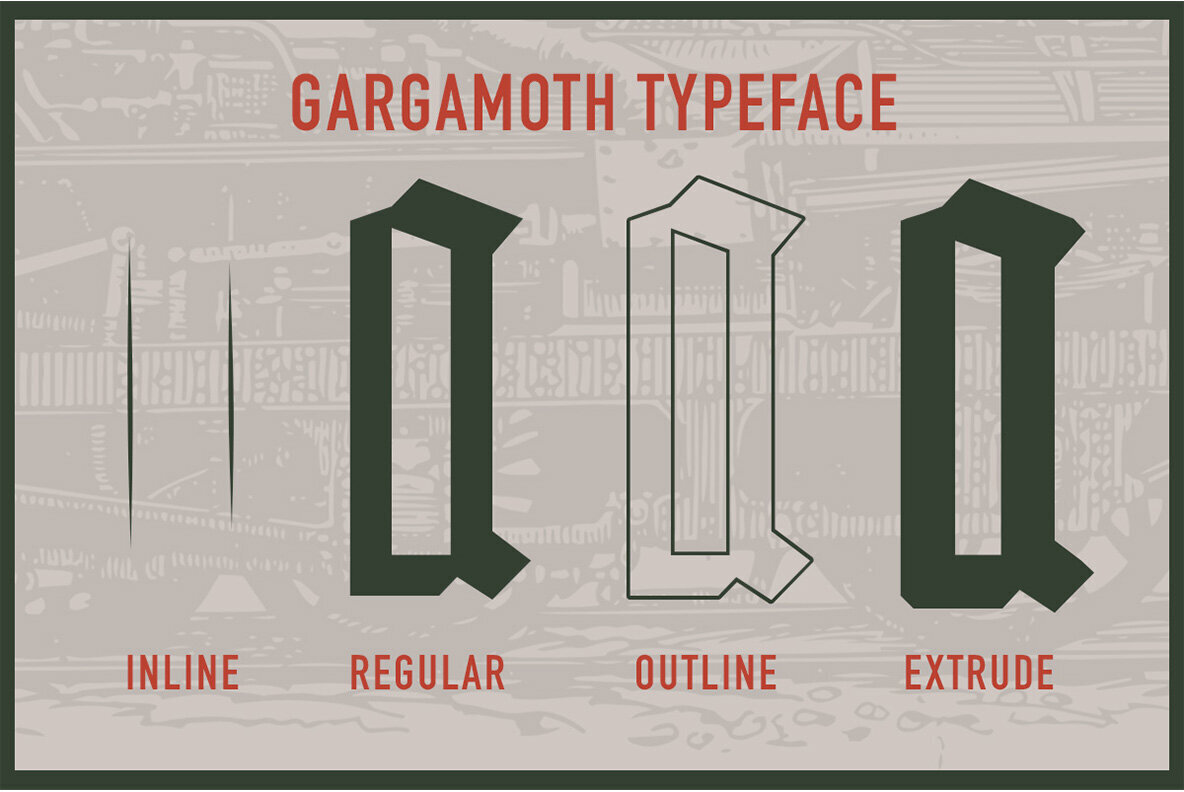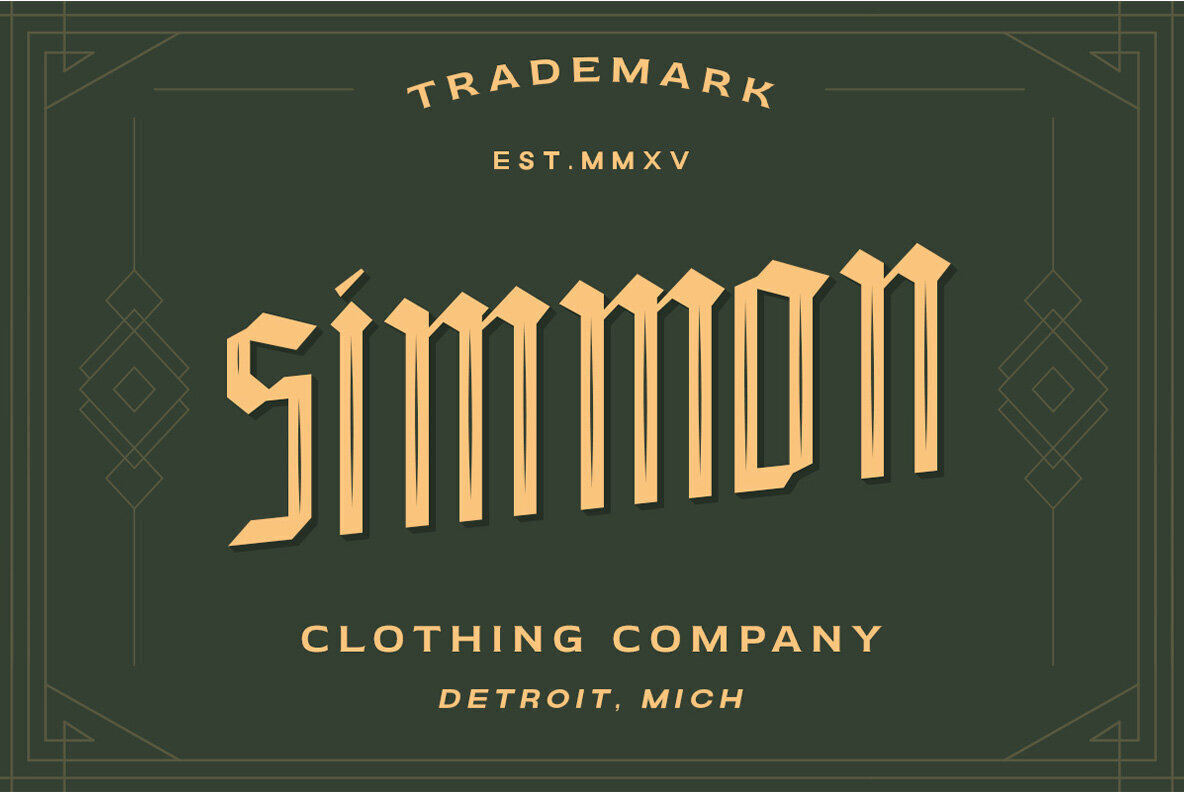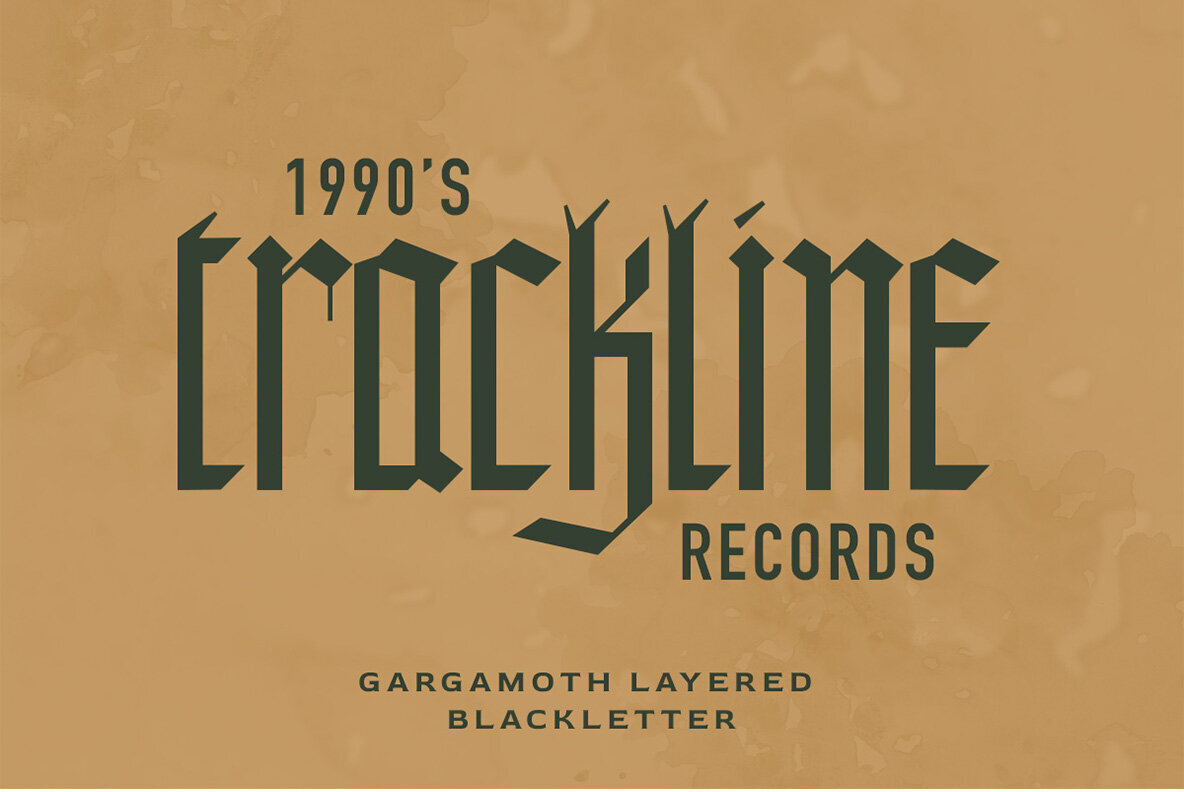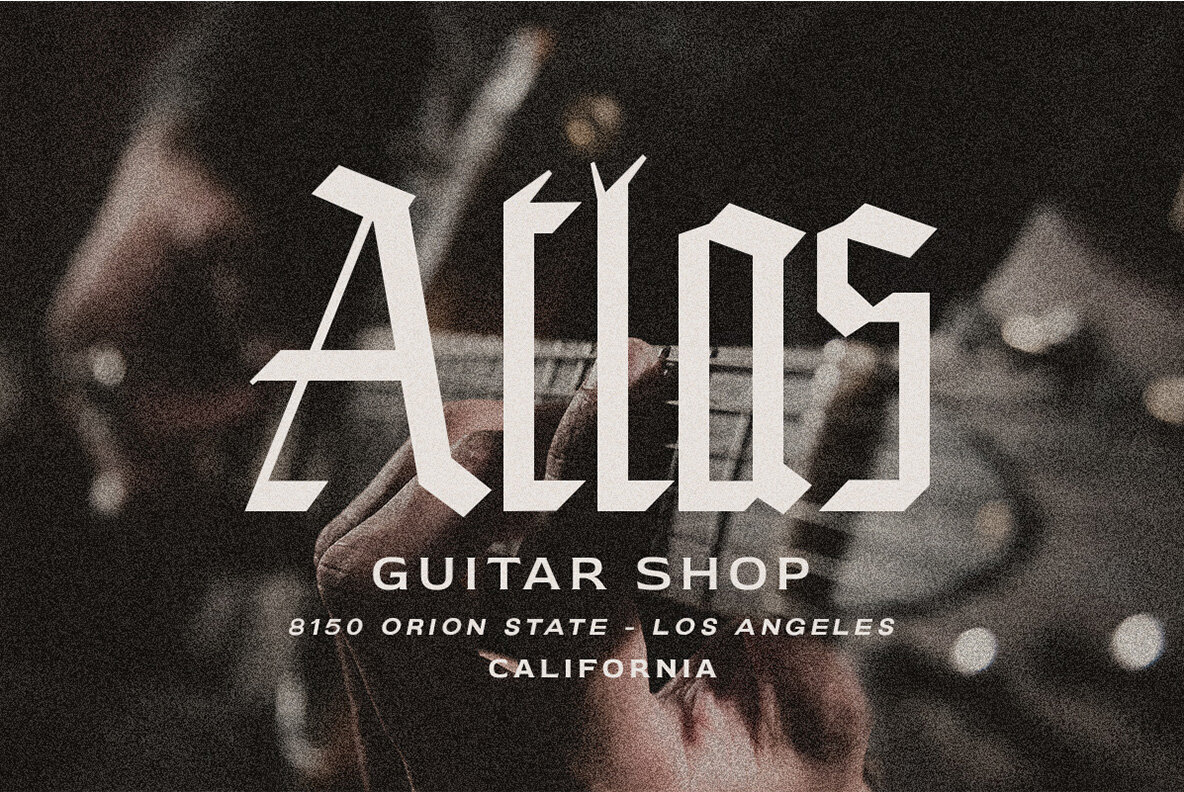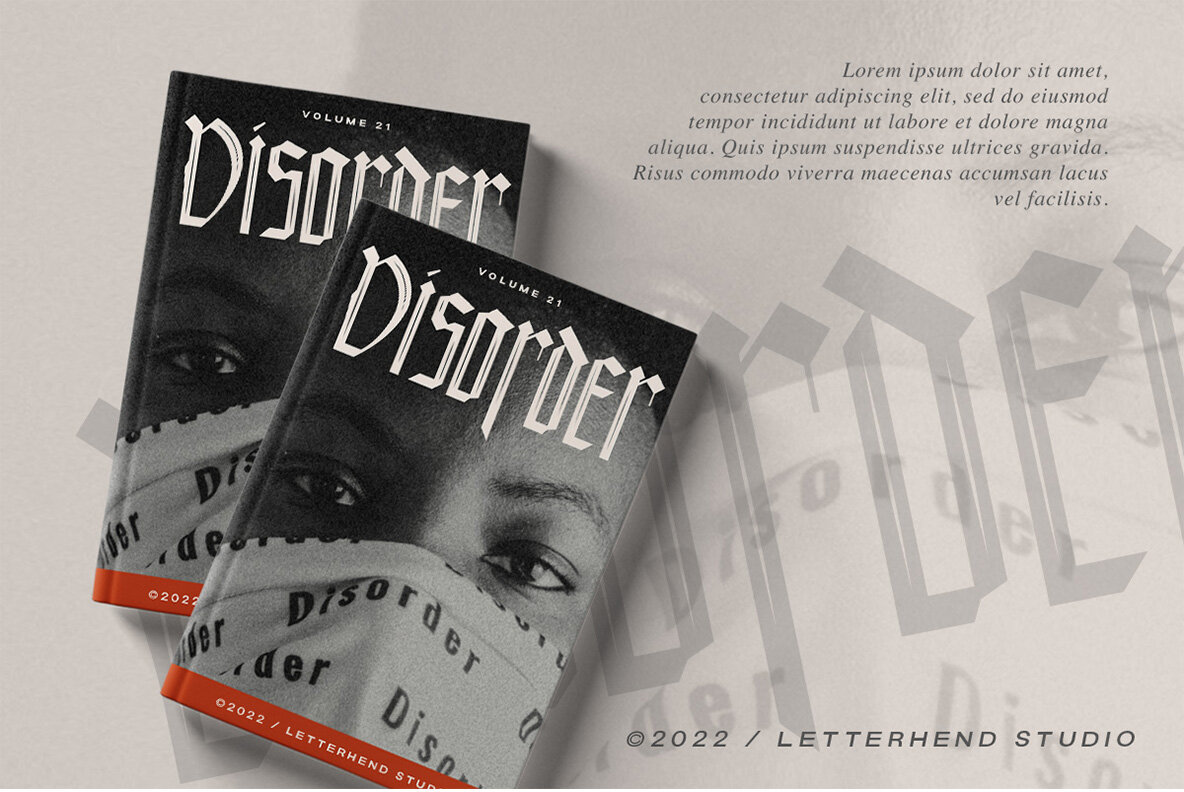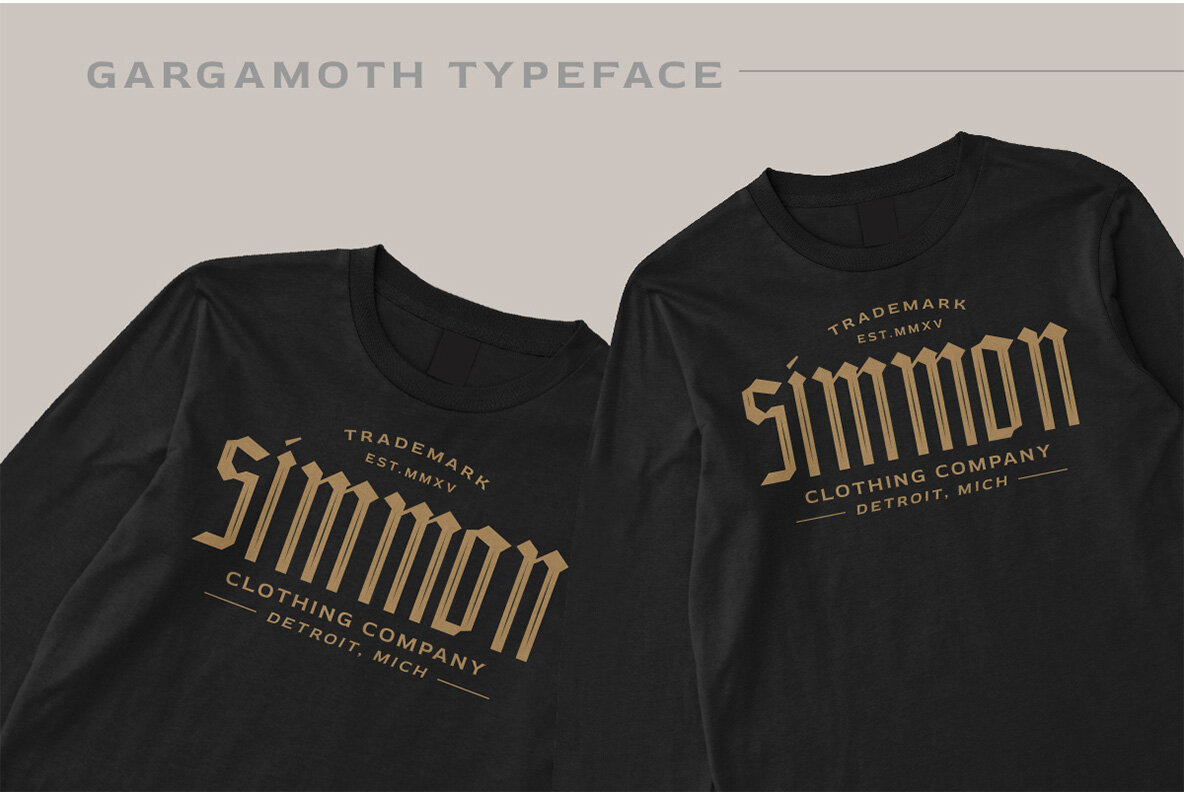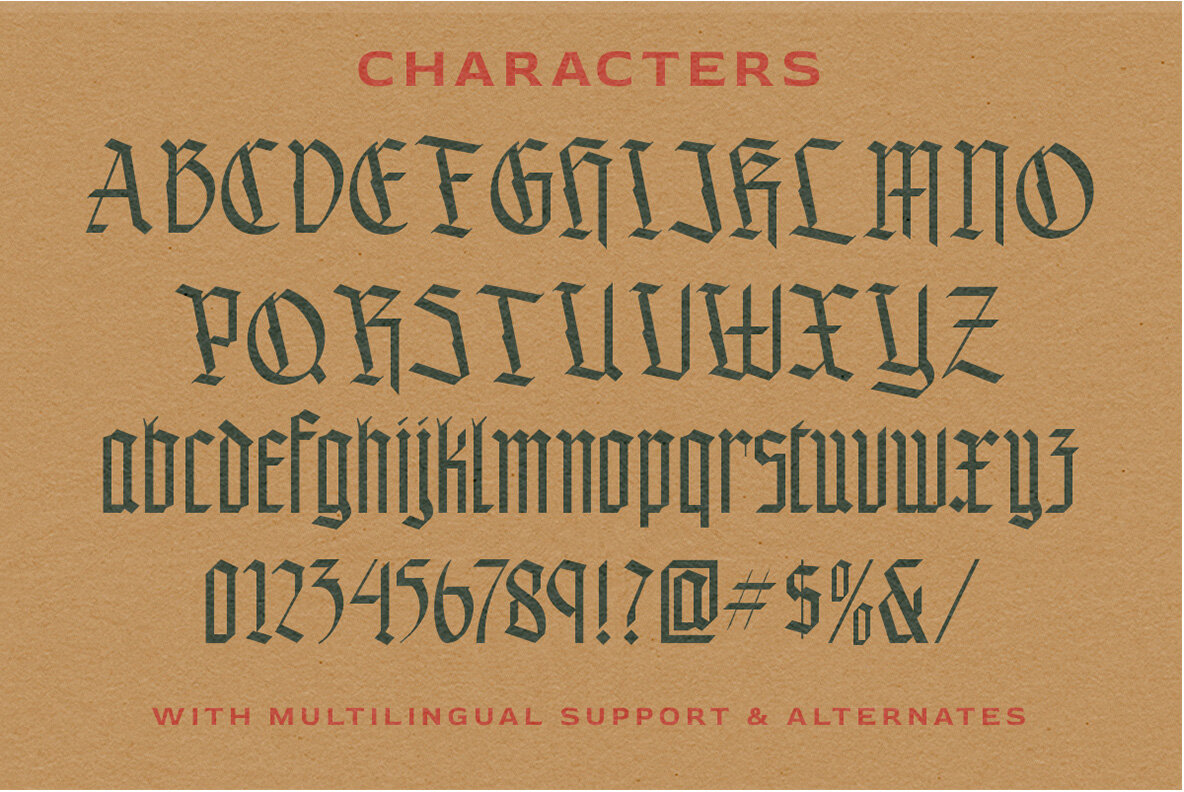
Gargamoth Font
Gargamoth is the perfect typeface for those who want to make their logos stand out. This modern blackletter was designed with a formal yet stylish vibe in mind, and it can be used on anything from clothing fashion headlines or any other kind of advertising purpose!
- Uppercase & lowercase
- Layered fonts
- Numbers and punctuation
- Stylistic alternate